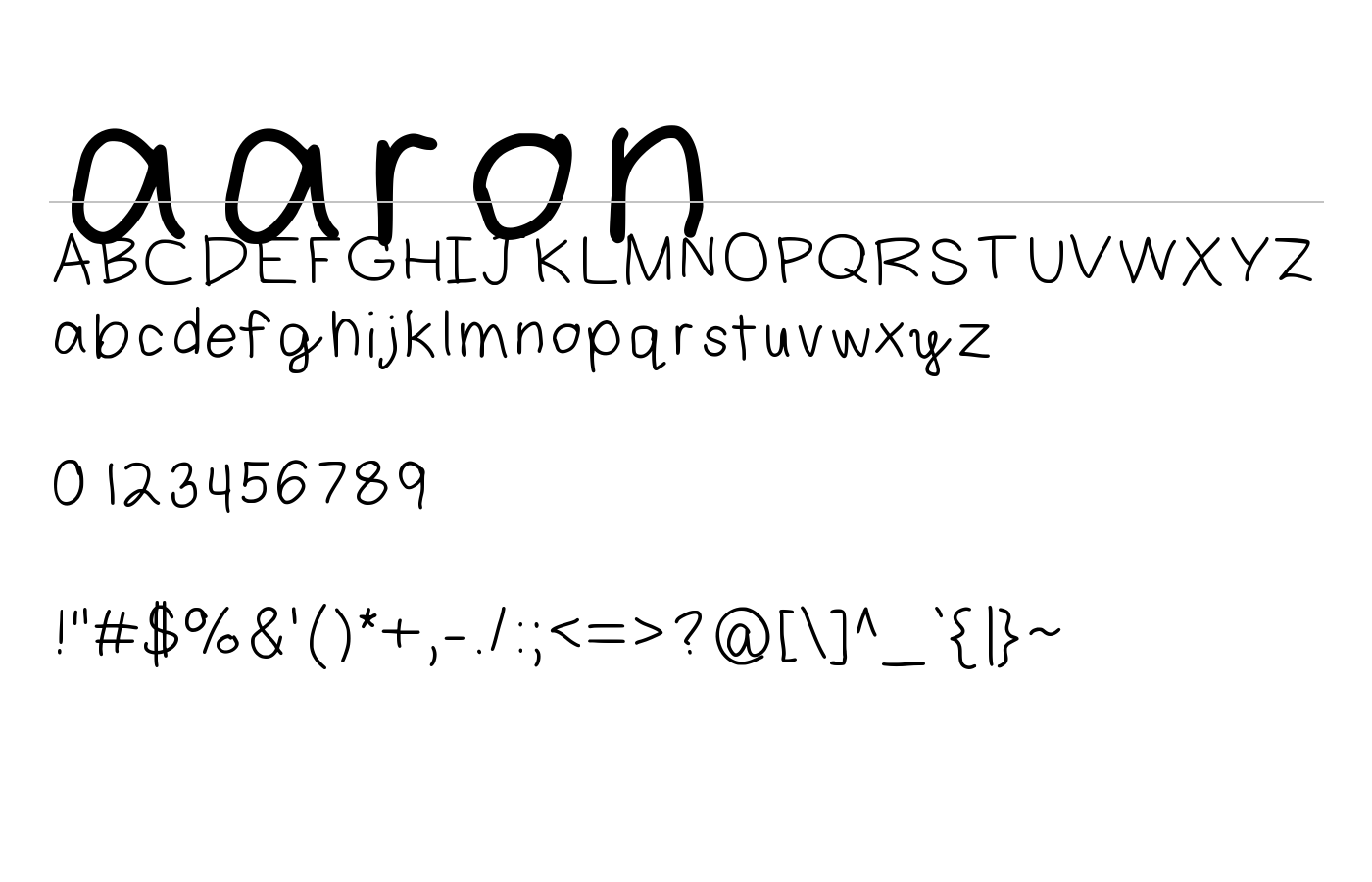
Aaron is a casual, handwritten sans serif font with a playful and friendly vibe. Its irregular stroke widths and slightly uneven letterforms give it a natural, approachable feel, making it an excellent choice for informal designs, children’s materials, and creative projects seeking a personal touch. This font works well in headlines, branding, and any context where warmth and individuality are desired.
aaron Font
About aaron Font